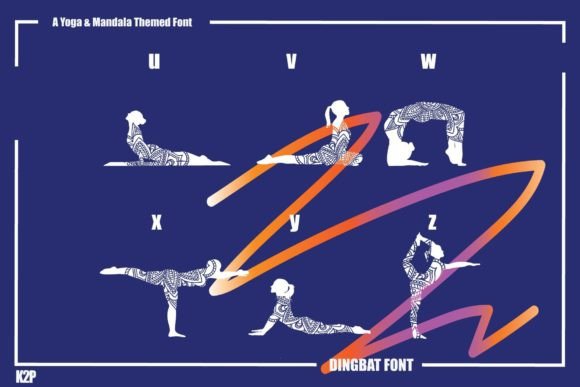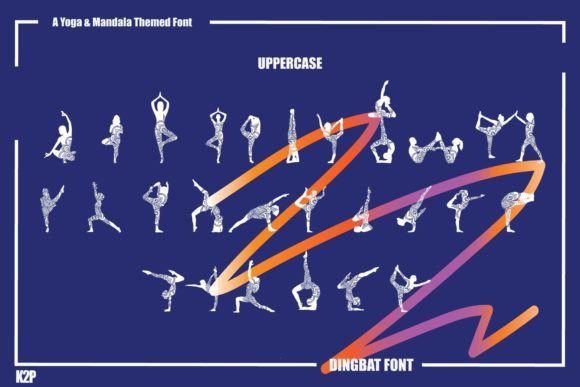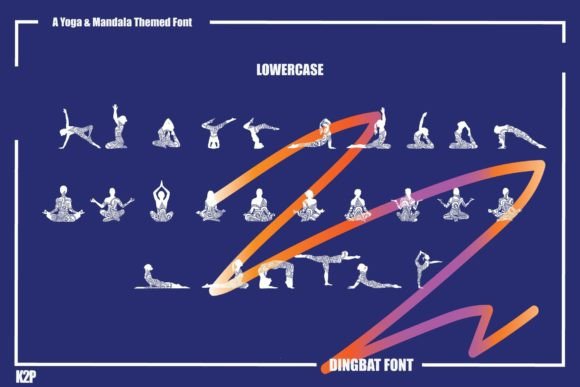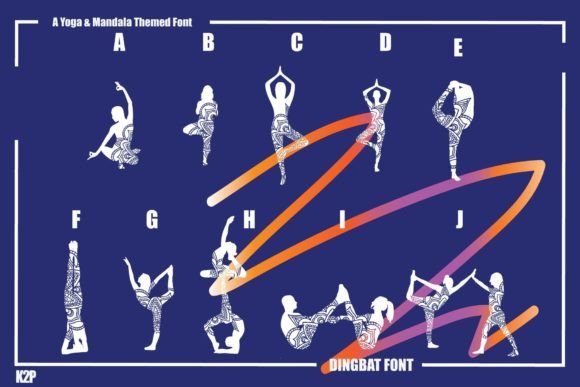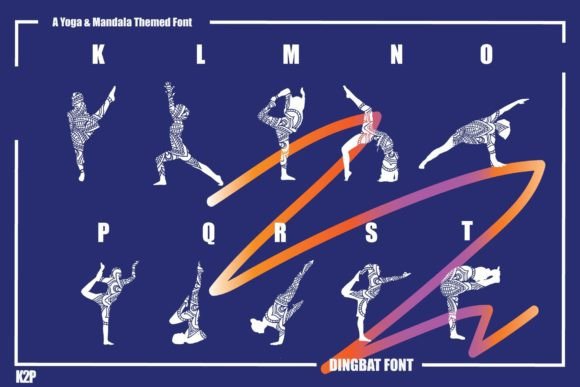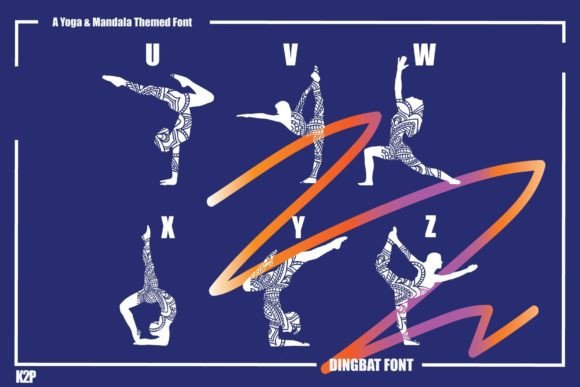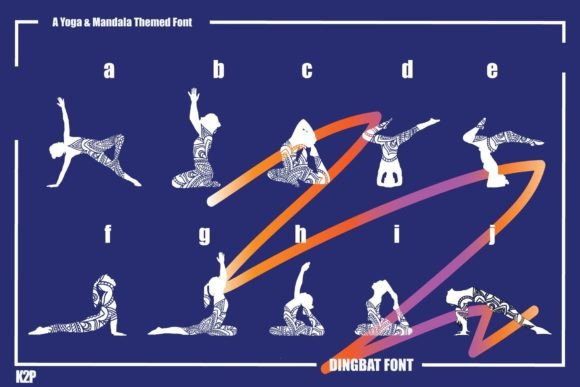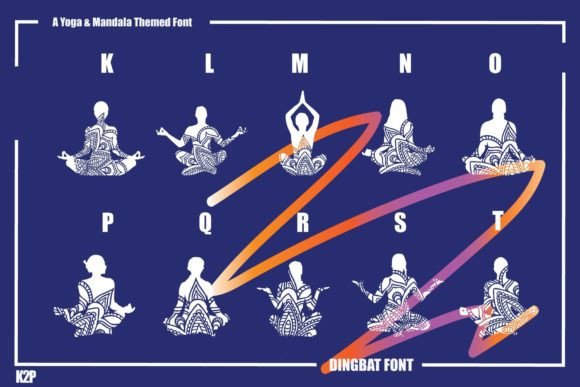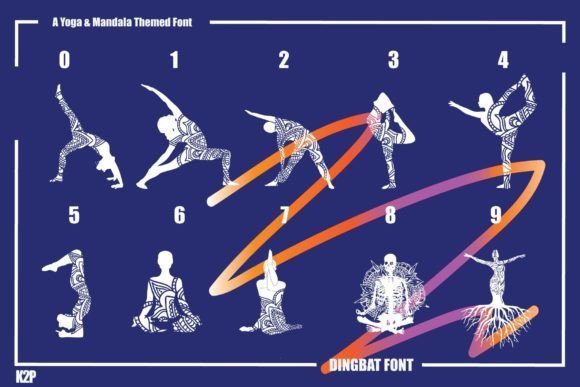
Yoga Mandala Font
ABOUT YOGA MANDALA FONT
“Yoga Mandala” is a wonderful and unique dingbat font that effortlessly combines elements of zen and trendiness. This font is a perfect choice for a wide range of projects, whether you’re crafting, designing digitally, creating presentations, designing posters, or working on yoga-themed projects.
With its collection of mandala-inspired illustrations, “Yoga Mandala” brings a sense of tranquility and balance to your designs. The intricate and symmetrical patterns of the mandalas create a harmonious and calming visual experience, reflecting the essence of yoga and mindfulness.
Whether you’re using “Yoga Mandala” for crafting or digital design, the dingbat font offers a wide variety of mandala designs to choose from. These mandalas can be used as decorative elements, borders, or even as focal points in your designs. Their intricate details and symmetrical patterns add a touch of elegance and sophistication to your projects.
In presentations, “Yoga Mandala” can enhance the visual appeal and convey a sense of serenity and focus. You can incorporate the mandalas as backgrounds, dividers, or icons, creating a cohesive and engaging presentation that resonates with your audience.
For posters, “Yoga Mandala” adds a trendy and artistic touch that captures attention and creates a visually captivating design. The mandalas can be used to frame text, create eye-catching titles, or serve as central elements in the overall composition. Their intricate patterns and balanced symmetry create a sense of harmony and draw viewers into the design.
If you’re working on yoga-themed projects, “Yoga Mandala” is the perfect companion. The dingbat font’s mandalas can be used to represent various yoga poses, symbolize chakras, or simply evoke a sense of mindfulness and tranquility. Incorporating these mandalas into your designs adds a touch of authenticity and captures the essence of yoga and its holistic approach.
So, whether you’re crafting, designing digitally, creating presentations, designing posters, or working on yoga-themed projects, “Yoga Mandala” is a versatile and captivating dingbat font that adds a perfect blend of zen and trendiness. Embrace the beauty of mandalas and let “Yoga Mandala” elevate your designs to new heights, infusing them with a sense of tranquility and balance.